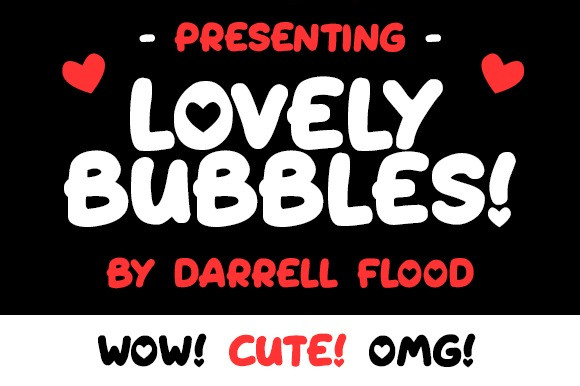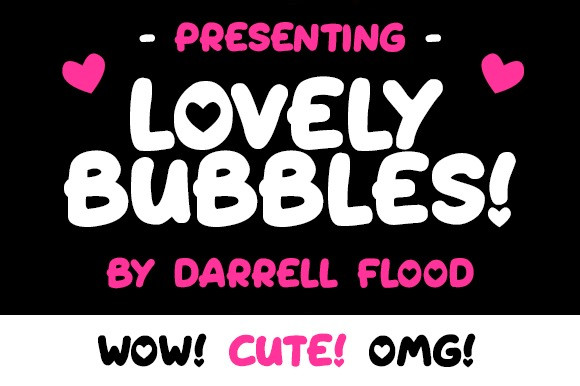
Lovely Bubbles Font
Lovely Bubbles Display Font, a playful, bubbly font in a rounded, cartoon style. Perfect for Valentine’s cards, comics use, and general family-friendly fun!